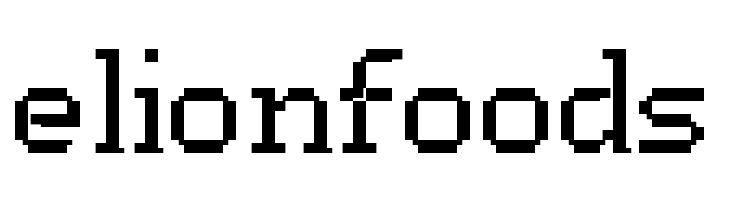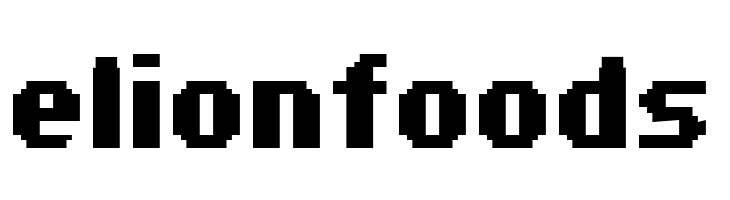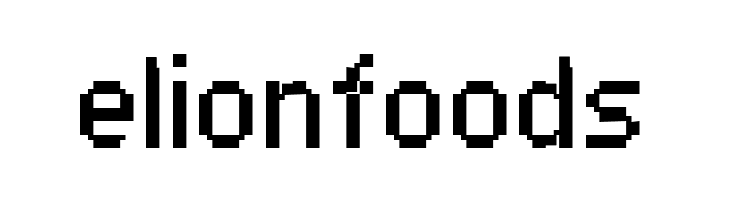
A pixelated, blocky font with a retro digital style.
A bold, pixelated font with a retro digital style.
A bold, compressed font with a geometric and robust design.
A pixelated, blocky font with a retro digital aesthetic.
A bold, condensed, pixelated font with a retro digital style.
A bold, geometric font with a digital, pixelated style and extended width.
A bold, extended, and geometric font with a modern style.
A pixelated, retro font with a digital, nostalgic style.